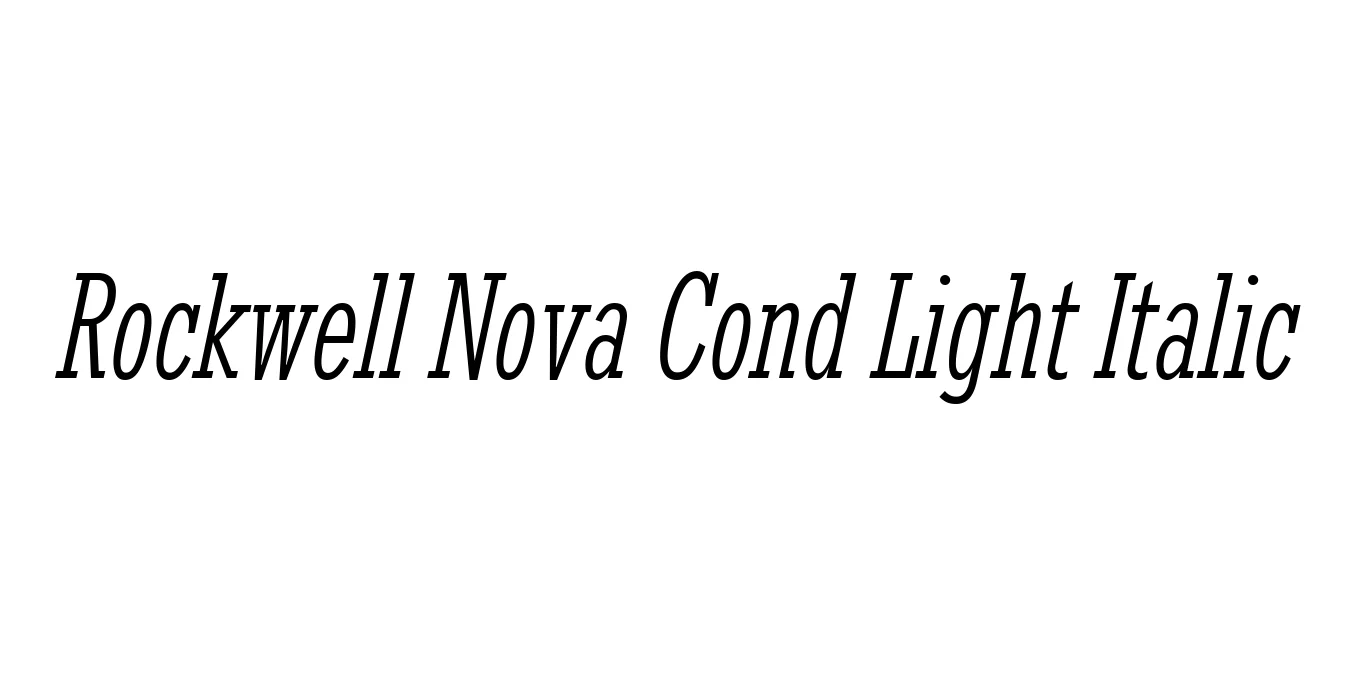
Rockwell Nova Cond Light Italic
Designed by Monotype Design Studio
| Category | Slab Serif |
| Designer | Monotype Design Studio |
| Similar Fonts | Memphis, Stymie, Lubalin Graph, Geometric Slab 703 |
Rockwell Nova Cond Light Italic is a modern refinement of the legendary Rockwell slab serif family, which was originally developed in 1934 under the supervision of Frank Hinman Pierpont. The Nova series, introduced to update the classic typeface for the digital age, was overseen by Monotype's Steve Matteson. This specific condensed light italic variant focuses on providing a space-efficient and sophisticated alternative to the heavier, more blocky standard weights, maintaining the geometric precision that defines the original typeface.
The Rockwell Nova Cond Light Italic is characterized by its slender profile and rhythmic slant, making it exceptionally well-suited for high-end editorial layouts and complex information design. While it retains the robust, architectural slab serifs of its predecessor, the light italic weight offers a rare fluidity and elegance. It serves as an excellent choice for designers looking to balance the mechanical strength of a slab serif with the graceful legibility of a condensed italic face.
Rockwell Nova Cond Light Italic Best Uses
Perfect for sophisticated magazine subheaders and stylized pull quotes.
Ideal for architectural or tech-focused corporate identities requiring a refined touch.
Excellent for sidebars and navigation menus where horizontal space is limited.
Effective for creating high-impact but lightweight messaging in print and digital ads.